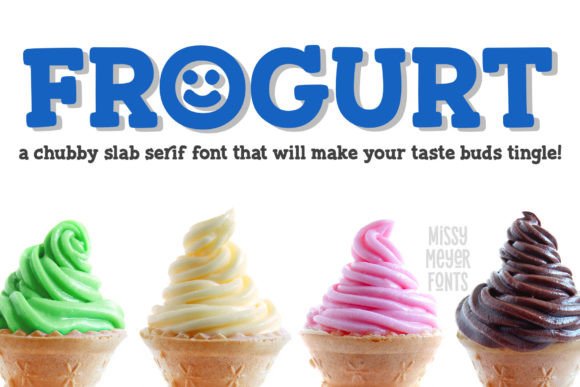
Welcome to the captivating world of Frogurt Font, the bountiful slab serif font family designed to inject a playful, friendly, and comforting atmosphere into your designs. Inspired by a 30-year-old hand-carved wooden sign, Frogurt arose as a response to the scarcity of soft, funky, and inviting fonts in the digital realm. Its full, rounded, and plump characters exude a palpable sense of frozen yogurt, inviting you to savor the frozen delight of design.
Crafted with meticulous care by GeekMissy, Frogurt is a treat for the eyes, a font that oozes warmth and cheer. Its gently inclined posture, coupled with subtle variations and irregularities, adds a touch of whimsy and playfulness that will make your designs stand out from the crowd. Despite its cheerful nature, Frogurt maintains its readability and legibility, ensuring that your messages are conveyed with clarity and impact.
With over 570 glyphs, including the full range of upper and lowercase letters, numerals, punctuation, and an impressive collection of extended Latin characters, Frogurt empowers you with the versatility to create multilingual designs without breaking a sweat. Additionally, over 50 alternates and ligatures await your command, ready to introduce diversity and style into your creations.
Frogurt's PUA encoding ensures effortless access to all its delightful characters, making it a breeze to unleash your imagination. Whether you're embarking on print or cutting projects, Frogurt's sharp outlines and clean aesthetic promise pristine results, leaving your audience marveling at the remarkable finesse of your designs.